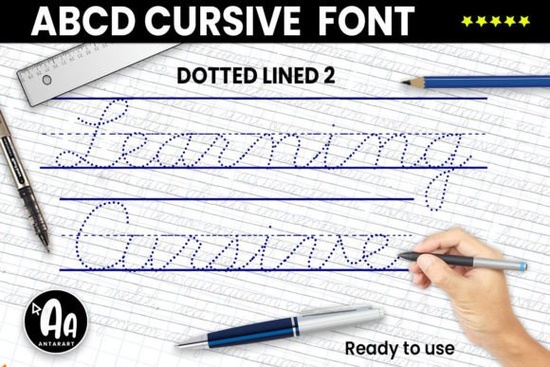
If you’ve ever tried teaching cursive handwriting or learning it yourself you know how tricky it can be to find the right tools. That’s where Abcd Cursive Dotted Lined2 Font comes in handy. It’s not just another script font; it’s designed specifically for creating practice sheets, worksheets, or custom lettering projects with dotted lines and ruled guides built right into the letters. Whether you’re a homeschool parent, a small business owner selling printable packs, or a crafter making personalized gifts, this font helps you build engaging, hands-on learning materials without needing fancy design software.
Who actually benefits from using this font?
Teachers and tutors love it because they can generate endless practice pages tailored to their students’ pace. Print-on-demand sellers use it to create downloadable cursive workbooks that stand out in marketplaces like Etsy. Even hobbyists who enjoy journaling or hand-lettering projects find it useful for tracing templates or layered designs. The dotted-line style mimics traditional handwriting paper, so learners can follow stroke order naturally no more guessing where the pen should go next.
Can I really use this in any software?
Yes and that’s one of its biggest strengths. Once installed, the font works in programs you probably already use: Canva, Adobe Illustrator, Microsoft Word, Google Docs, Silhouette Studio, and even basic text editors. You don’t need plugins or special apps. Just type your content, adjust the size, and print. The dotted guidelines appear automatically as part of each character, which means no manual alignment or extra layers.
For example, typing “The quick brown fox” will render each letter with its own guiding dots and baseline, ready for tracing. This makes it ideal for:
- Custom name practice sheets for kids
- Handwriting drills for ESL learners
- Personalized wedding vow books or guest sign-in sheets
- DIY classroom posters or Montessori-style cards
How does it compare to similar cursive teaching fonts?
Most cursive fonts are either fully connected scripts meant for display (like Golfmind) or plain outlines without guides. Abcd Cursive Dotted Lined2 fills a practical gap by combining legible letterforms with built-in tracing aids. It doesn’t try to be overly artistic it prioritizes clarity and repetition, which is exactly what beginners need.
The spacing between letters is generous enough to avoid crowding, and the stroke direction is intuitive. Some users even print pages at larger sizes for tactile learners who benefit from air-writing or finger-tracing before putting pen to paper.
Quick tip before you start
When setting up your document, increase the line height slightly (around 1.5x) to give learners room to write above or below the guided letters. And if you’re designing for younger kids, consider pairing uppercase and lowercase versions side by side they’ll thank you later.